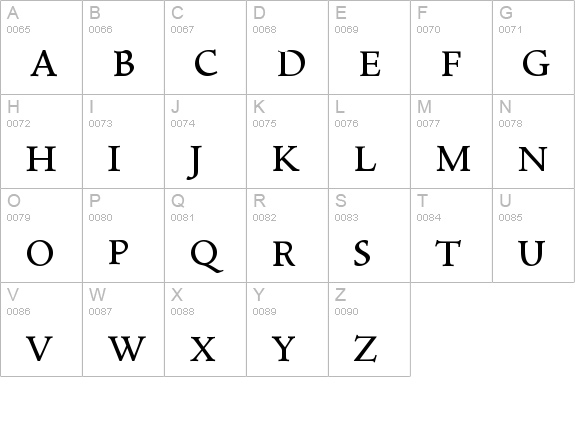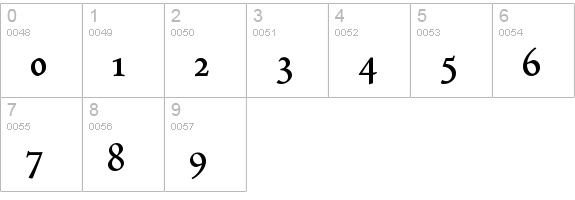
Spira-Bold is a strong, high-contrast variant in the Spira typeface family \xE2\x80\x94 well suited to headlines, attention-grabbing titles, and strong calls-to-action.
Spira-Bold is a striking and versatile font that exudes confidence and boldness. Its strong and pronounced letterforms make it the perfect choice for headlines, titles, and branding projects that require a powerful statement. With its clean and modern design, Spira-Bold commands attention and leaves a lasting impression. What sets Spira-Bold apart is not only its exceptional aesthetics but also the fact that it is freely available to download at FontsMarket.com. This means that designers, creatives, and anyone in need of a remarkable font can easily access and utilize Spira-Bold without any cost. This generosity allows for the font to reach a wide audience, empowering individuals to create standout designs and express their unique visions. When used in large sizes, Spira-Bold's thick lines and distinctive shapes ensure legibility and impact, making it an ideal choice for posters, banners, and magazine covers. Its versatility is further demonstrated in smaller sizes, where it maintains its clarity and readability, making it suitable for body text, subheadings, and captions. Spira-Bold's character set includes uppercase and lowercase letters, numerals, punctuation marks, and a wide range of special characters. This extensive collection enables designers to effortlessly create captivating compositions, while the font's sleek and modern style adds a touch of sophistication to any project. Whether you are a professional designer or an amateur enthusiast, Spira-Bold is a font that will elevate your work to new heights. With its free availability at FontsMarket.com, it is a valuable asset that can unleash your creativity and help you make a lasting impact with your designs.